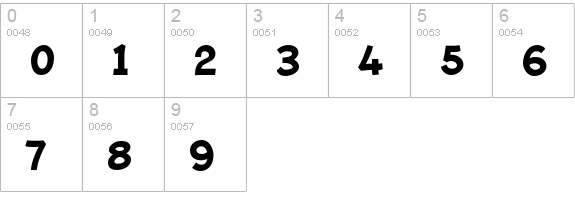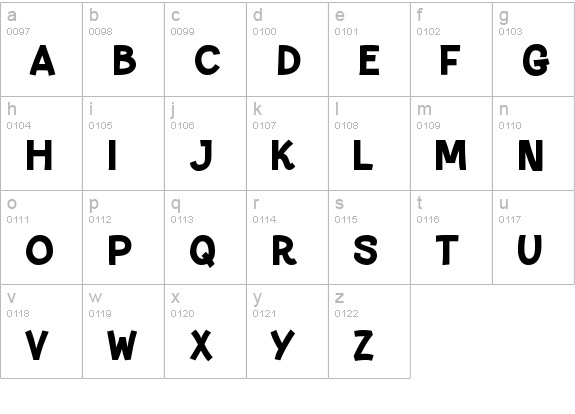
Paltime Solid is a beautifully designed font that exudes elegance and sophistication. With its clean lines and modern aesthetic, this typeface is perfect for a wide range of design projects, from branding to editorial design. The bold and solid appearance of Paltime Solid makes it stand out and grab attention, making it a great choice for headlines, titles, and logos. One of the best things about Paltime Solid is that it is available for free download at FontsMarket.com. This means that you can easily access this stunning font and use it in your projects without any cost. Whether you're a professional designer looking for a new typeface to add to your collection or a hobbyist looking to enhance your creative projects, Paltime Solid is a versatile and stylish choice that won't break the bank. Download Paltime Solid today and elevate your designs with this exceptional font.